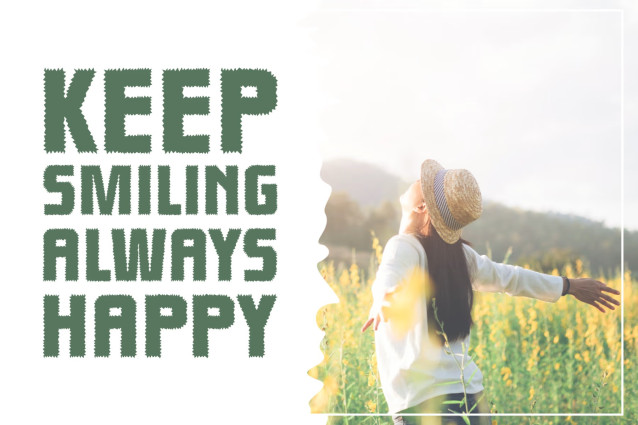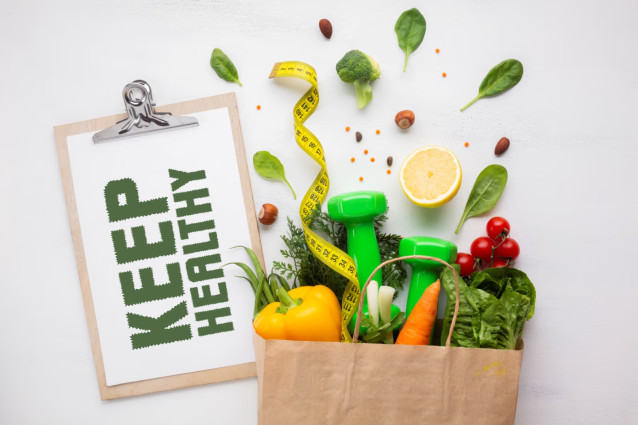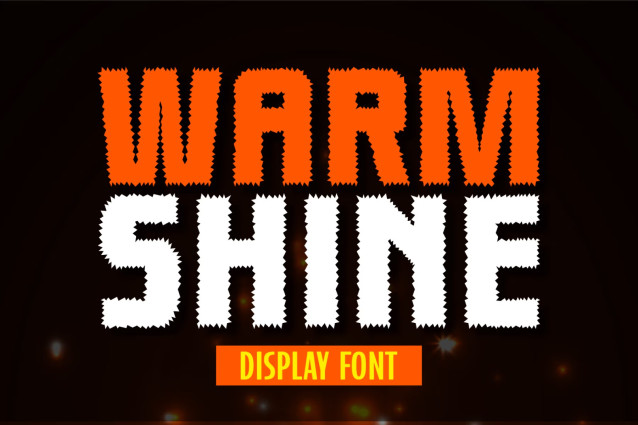
Warm Shine Font
Warm Shine is a fun, spiky display font. Whimsical and a bit quirky, this font will brighten up each of your designs. Add it confidently to your projects, and you will love the results.